Paciencia (Patience) - Custom Font
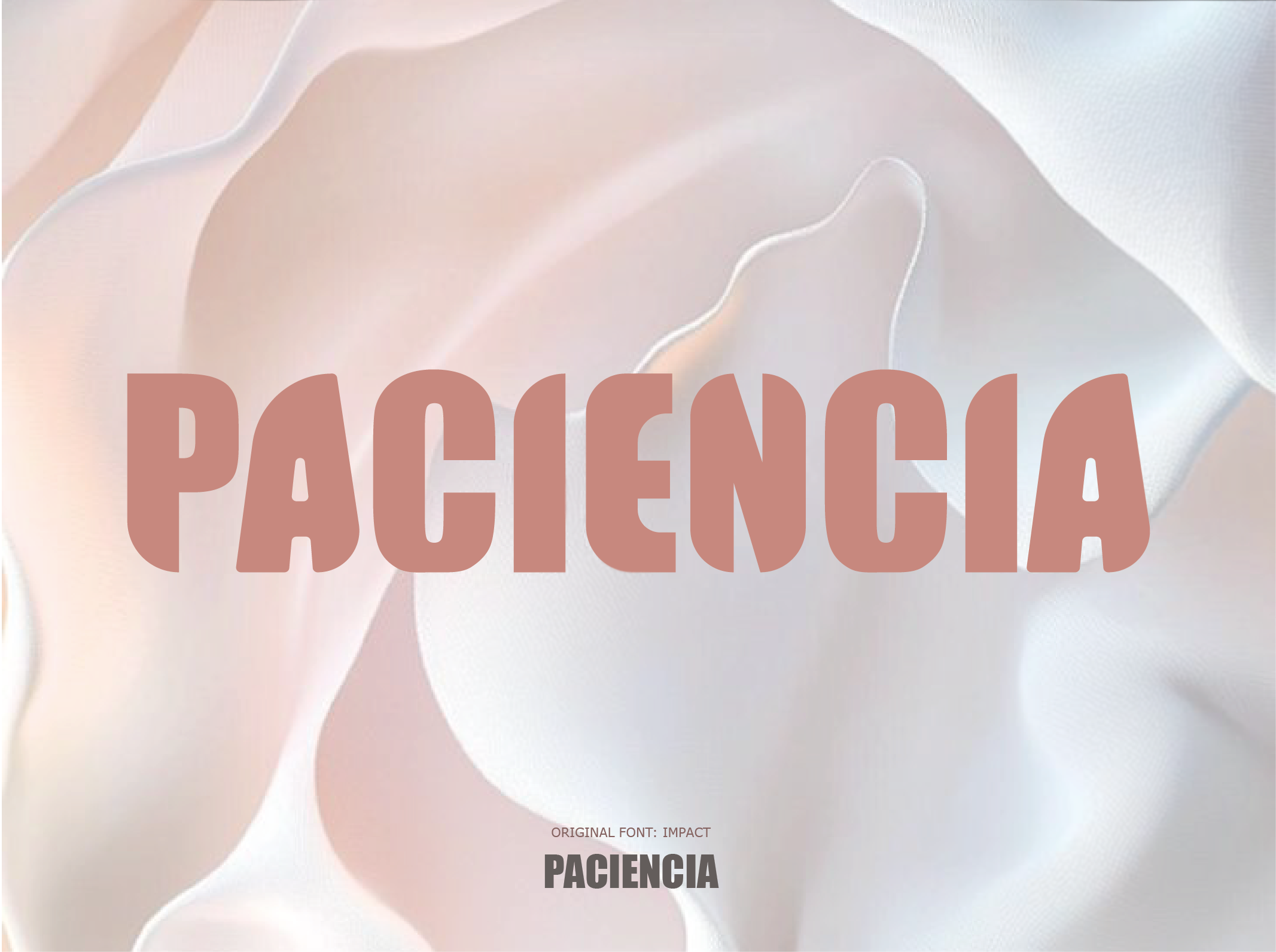
“Patience” is the word that came to mind when I started this project — patience with myself.
(No, that’s not true. I actually thought “cake,” because I was hungry.)
“Patience” could easily be a logo for a desperate moms club or a yoga school, for example :)